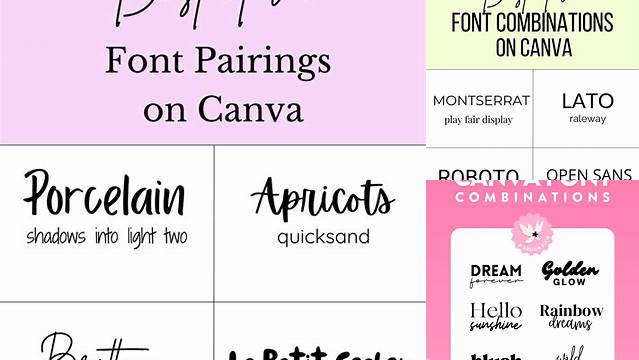
Stylish Free Font Combinations: Design Guide
Finding the perfect free font combination can feel like searching for a needle in a haystack, right? But don't worry, guys! This ultimate guide is here to help you navigate the world of typography and discover amazing font pairings that will make your projects shine. Whether you're designing a website, creating marketing materials, or just looking to spice up your social media graphics, understanding font combinations is key.
1. Why Font Combinations Matter
So, why should you even care about font combinations? Well, imagine serving a gourmet meal on a chipped, plastic plate. The food might be amazing, but the presentation lets it down, doesn't it? Free font combination work the same way. The right fonts can elevate your design, making it look professional, polished, and engaging. They help communicate the mood and tone of your message, guiding the reader's eye and creating a visual hierarchy. A bad font pairing, on the other hand, can make your design look amateurish and even confuse your audience. They might not consciously realize why something feels off, but they'll sense it. And trust me, you don't want that! Think about it: fonts have personalities. Some are bold and assertive, others are elegant and refined, and still others are playful and quirky. When you combine fonts that clash, it's like inviting two people with completely opposing personalities to the same party – things are bound to get awkward. But when you find fonts that complement each other, it's like bringing together two friends who just click. They enhance each other's strengths and create a harmonious whole. The ultimate goal of any design is to communicate effectively. And typography plays a massive role in that communication. The right free font combination ensures that your message is not only seen but also understood and remembered. It helps to create a brand identity, establish a visual style, and leave a lasting impression on your audience. So, take the time to learn about font pairings, experiment with different combinations, and find what works best for you. Your designs will thank you for it!
2. Understanding Font Classifications
Before diving into specific free font combination, it's essential to understand the basic font classifications. Think of it as learning the different breeds of dogs before adopting a puppy. Knowing the characteristics of each class will help you make informed decisions about which fonts to pair together. The main classifications include Serif, Sans-Serif, Script, and Decorative. Serifs are characterized by the small strokes or “feet” at the end of each letter. They are often associated with tradition, authority, and readability. Think Times New Roman or Garamond. These fonts are commonly used in books, newspapers, and formal documents. Serif fonts have a classic and timeless feel, making them a great choice for projects that need to convey a sense of credibility and sophistication. Sans-Serifs, on the other hand, lack these serifs. They are clean, modern, and often associated with simplicity and clarity. Helvetica and Arial are classic examples. Sans-serif fonts are popular for websites, logos, and contemporary designs. Their clean lines and minimalist aesthetic make them a versatile choice for a wide range of applications. Script fonts mimic handwriting. They are elegant, personal, and often used for invitations, headings, and decorative elements. Think Brush Script or Lobster. Script fonts can add a touch of personality and flair to your designs. However, they should be used sparingly, as they can be difficult to read in large blocks of text. Decorative fonts are the wild cards of the font world. They are highly stylized and often used for display purposes, such as posters, banners, and eye-catching headings. These fonts can be anything from retro and funky to futuristic and abstract. Decorative fonts are great for making a statement and adding a unique touch to your designs, but they should be used with caution, as they can easily overwhelm a design if not used sparingly. Understanding these classifications is crucial for creating effective free font combination. By pairing fonts from different classes, you can create visual contrast and interest, while still maintaining a sense of harmony and balance. Experiment with different combinations to find what works best for your project and remember to always prioritize readability and clarity.
3. Serif and Sans-Serif Combinations
One of the most classic and reliable free font combination is pairing a serif font with a sans-serif font. This combination offers a great balance of tradition and modernity, making it suitable for a wide range of design projects. The key is to choose fonts that complement each other in terms of weight, style, and personality. For example, you could pair a traditional serif font like Garamond with a clean and modern sans-serif font like Helvetica. The serif font can be used for the body text, providing a sense of readability and authority, while the sans-serif font can be used for headings and subheadings, adding a touch of contemporary flair. Another popular combination is pairing a bolder serif font like Playfair Display with a lighter sans-serif font like Montserrat. The Playfair Display adds elegance and sophistication to headings, while the Montserrat provides a clean and readable body text. When choosing a serif and sans-serif combination, pay attention to the x-height of the fonts. The x-height is the height of the lowercase letters in a font. If the x-heights of the two fonts are significantly different, the combination may look unbalanced. It's also important to consider the overall tone and style of your design. Are you going for a classic and timeless look, or a more modern and edgy feel? Choose fonts that reflect the desired aesthetic. Experiment with different combinations and don't be afraid to break the rules. The most important thing is to find a free font combination that works for your specific project and effectively communicates your message. There are many great resources online that offer suggestions for serif and sans-serif pairings. Check out websites like Google Fonts and FontPair to find inspiration and discover new combinations. With a little experimentation, you'll be able to create stunning font combinations that will elevate your designs.
4. Monospace Font Pairings
Monospace fonts, where each character occupies the same horizontal space, can bring a unique, technical, or retro vibe to your designs. Finding the right free font combination with a monospace font can be tricky, but the results can be surprisingly effective. One approach is to pair a monospace font with a simple sans-serif font. The monospace font can be used for headings or code snippets, while the sans-serif font provides a clean and readable body text. This combination creates a sense of contrast and visual interest, while still maintaining a professional and modern look. For example, you could pair a monospace font like Courier New with a sans-serif font like Open Sans. Courier New adds a touch of retro charm, while Open Sans provides a clean and contemporary feel. Another option is to pair two different monospace fonts together. This can create a more cohesive and unified look, especially if the two fonts have similar weights and styles. However, be careful not to choose fonts that are too similar, as this can result in a monotonous and uninteresting design. Instead, look for monospace fonts that have subtle differences in their letterforms or spacing. When using monospace fonts, it's important to pay attention to readability. Monospace fonts can be more difficult to read than proportional fonts, especially in large blocks of text. Therefore, it's best to use them sparingly and in smaller sizes. You can also increase the line height and letter spacing to improve readability. Monospace fonts are often used in technical documentation, coding tutorials, and website designs that need to convey a sense of precision and accuracy. They can also be used to create a retro or vintage aesthetic, harking back to the days of typewriters and early computers. Experiment with different monospace free font combination to find what works best for your project. Don't be afraid to try something different and push the boundaries of typography.
5. Script and Sans-Serif Combos
Pairing script fonts with sans-serif fonts is a popular way to add a touch of elegance and personality to your designs. However, it's important to choose your fonts carefully, as script fonts can be difficult to read and can easily overwhelm a design if not used sparingly. The key is to find a script font that complements the sans-serif font in terms of style, weight, and personality. For example, you could pair an elegant script font like Pacifico with a clean and simple sans-serif font like Lato. The Pacifico adds a touch of whimsy and personality to headings, while the Lato provides a clean and readable body text. This combination is perfect for wedding invitations, greeting cards, and other designs that need to convey a sense of warmth and friendliness. Another option is to pair a bolder script font like Lobster with a more neutral sans-serif font like Roboto. The Lobster adds a touch of retro flair, while the Roboto provides a clean and modern feel. This combination is great for logos, posters, and other designs that need to make a statement. When using script fonts, it's important to pay attention to kerning and letter spacing. Script fonts often have intricate letterforms and delicate connections, so it's important to make sure that the letters are properly spaced and that the kerning is adjusted to avoid any awkward gaps or overlaps. It's also important to consider the overall tone and style of your design. Are you going for a formal and sophisticated look, or a more casual and playful feel? Choose fonts that reflect the desired aesthetic. Script and sans-serif free font combination can be a great way to add personality and flair to your designs. Just remember to use them sparingly and to choose fonts that complement each other in terms of style, weight, and personality. With a little experimentation, you'll be able to create stunning font combinations that will elevate your designs and capture the attention of your audience.